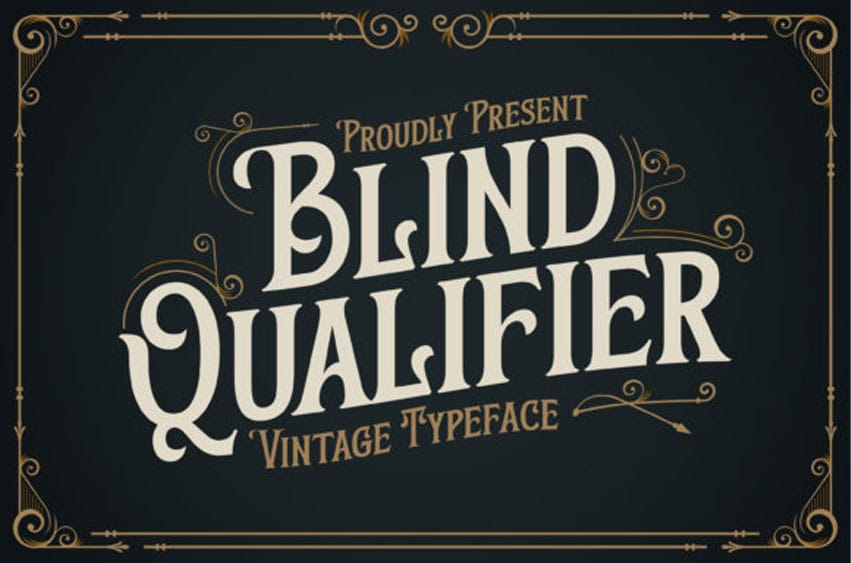
Blind Qualifier Font is a unique display typeface inspired by the decorative arts and architecture movement.
Blind Qualifier is perfect for your project and allows you to create designs, headlines, posters, logos, badges, t-shirts, and many more that are beautiful. You can also use it for posts, logos, posters, certificates, labels, and more.